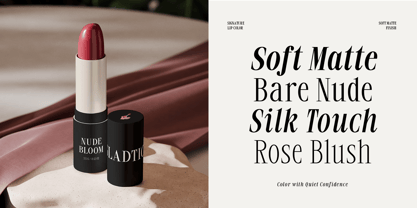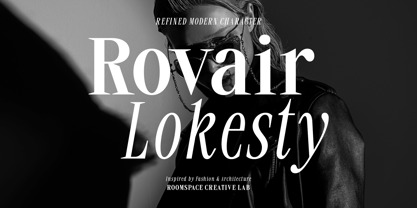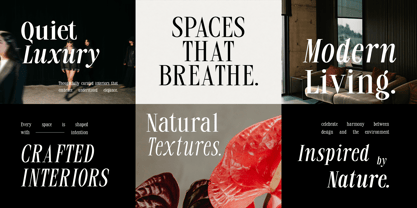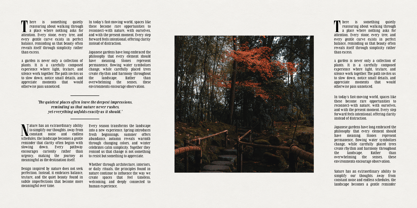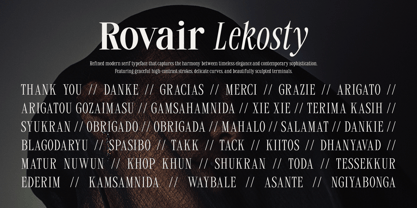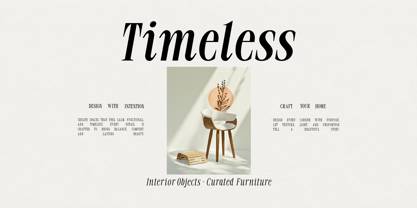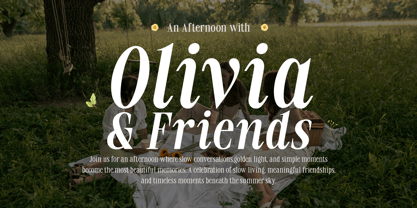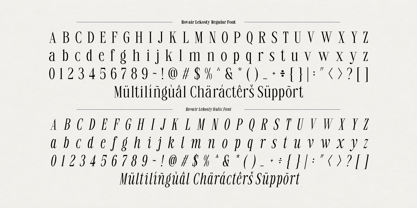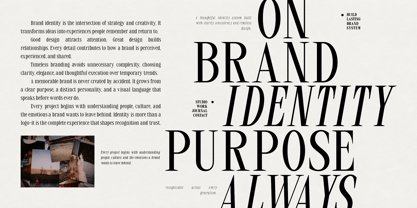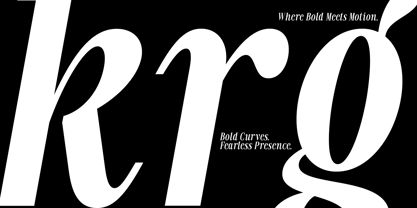
Rovair Lekosty
The Rovair Lekosty Font Family was designed by Bakhrudin Ja'far and published by Jafar07. Rovair Lekosty contains 18 styles and family package options. More about this family
Rovair Lekosty is a modern serif typeface that combines timeless elegance with refined contemporary details. Designed with graceful high-contrast strokes, soft curves, and carefully sculpted terminals, this typeface delivers a sophisticated visual voice suitable for luxury branding, editorial layouts, fashion campaigns, cosmetic packaging, hospitality identities, wedding stationery, and premium marketing materials.
Its balanced proportions create strong visual impact in large headlines while maintaining excellent readability in supporting typography. The italic style introduces expressive movement and contrast, making it ideal for sophisticated layouts that require both personality and elegance.
Whether you're creating a visual identity, magazine cover, logo, invitation, packaging design, website header, or social media campaign, Rovair Lekosty offers a versatile serif family that adapts beautifully across digital and print applications.
Designers: Bakhrudin Ja'far
Foundry: Jafar07